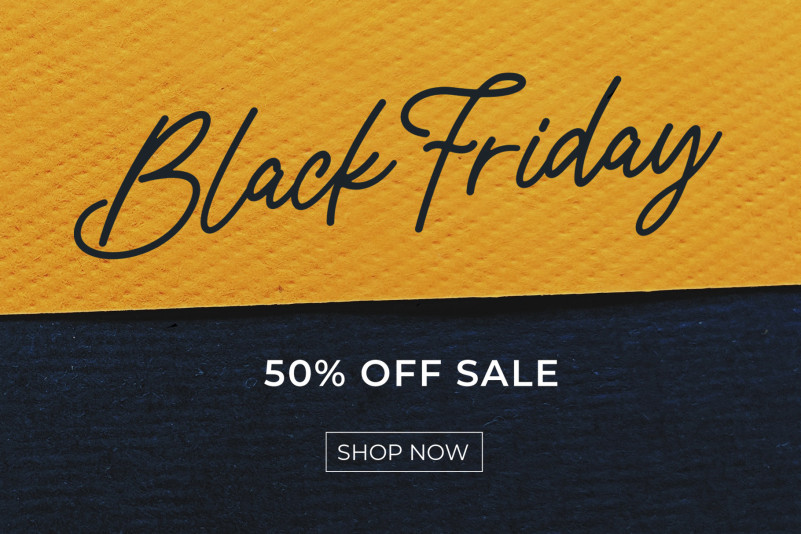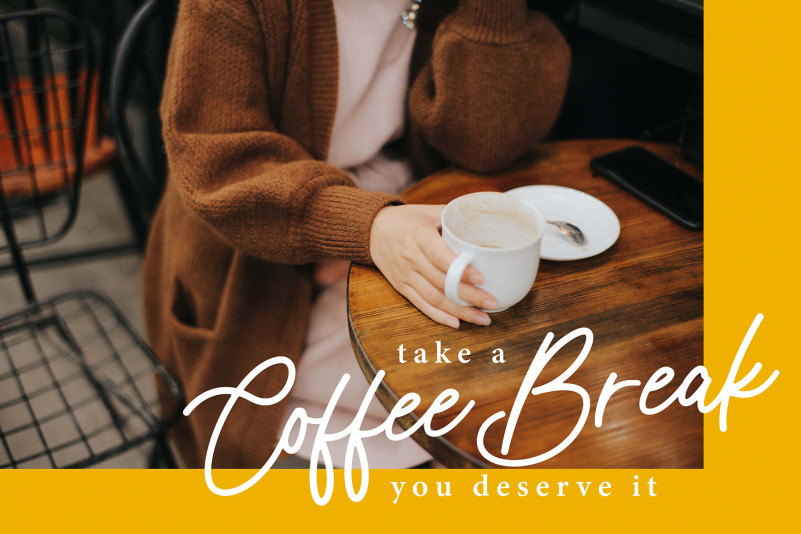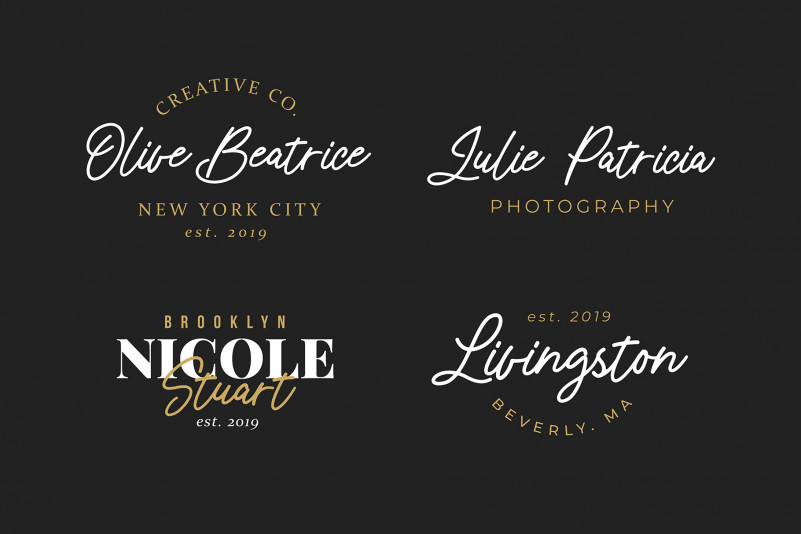
Rhamonic Handwritten Font
Rhamonic Handwritten Font a stylish handwritten font that will give instant flair to your designs. Rhamonic is a messy, feminine, carefree script that is perfect for logos, posters, signage, and more!